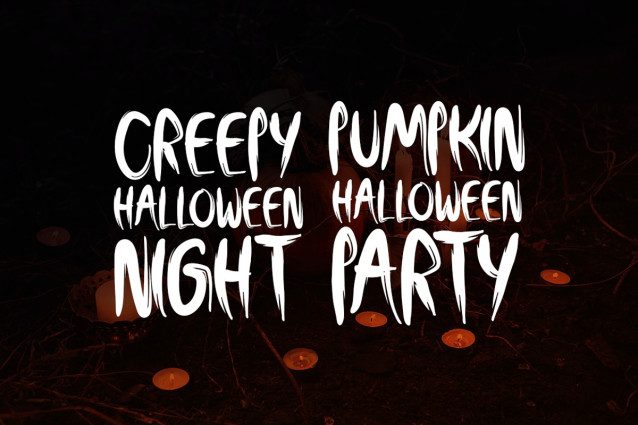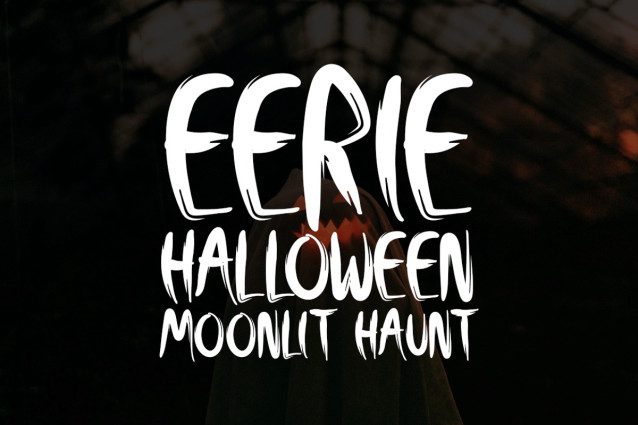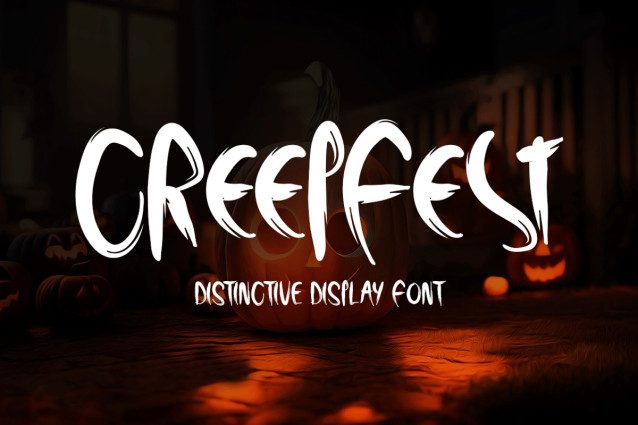
Creepfest Font
Creepfest Font A fantastically distinctive display font, Creepfest blends casual elegance with a hint of spookiness. This typeface is ideal for all your Halloween-themed creations; it gives crafts, decorations, and invitations a spooky charm. Creepfest adds the ideal dash of frightening fun to any design, be it scary posters, haunted home flyers, or spooky party invites. With this adaptable and engrossing font, let your imagination run wild and see where it takes you.